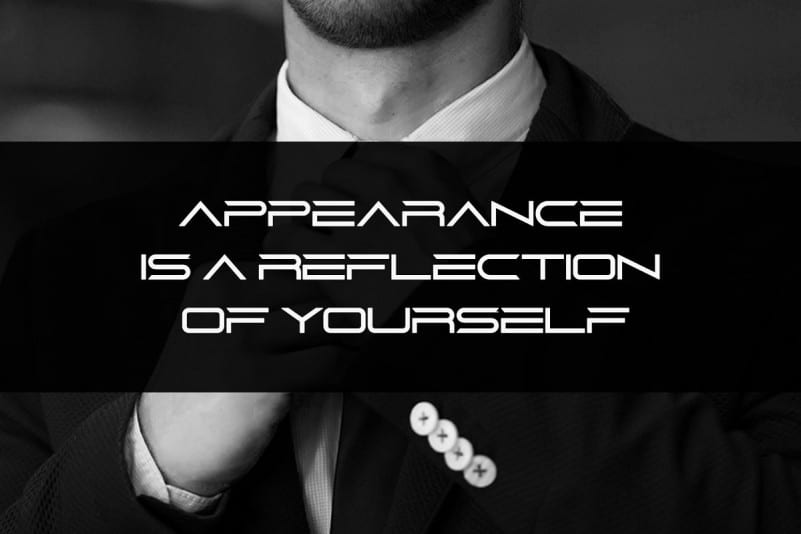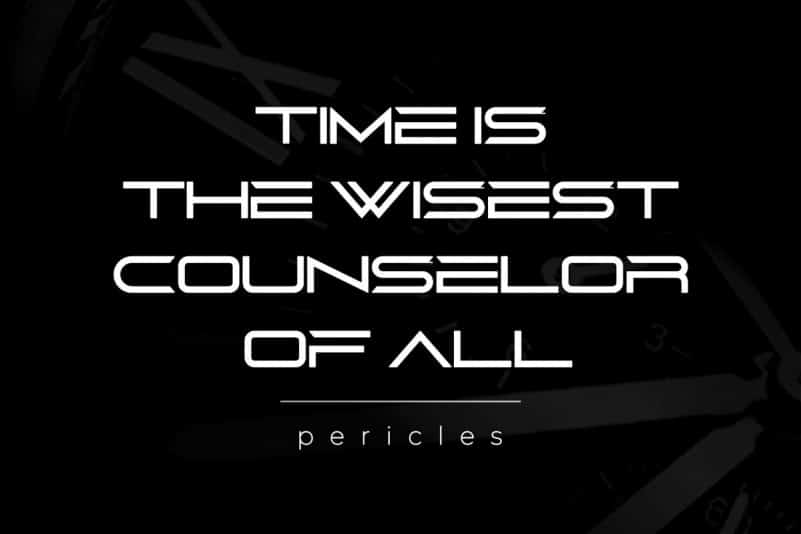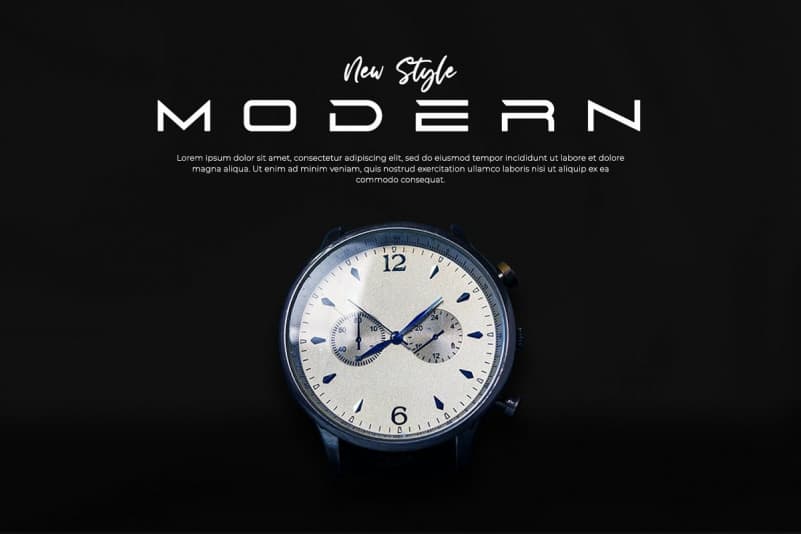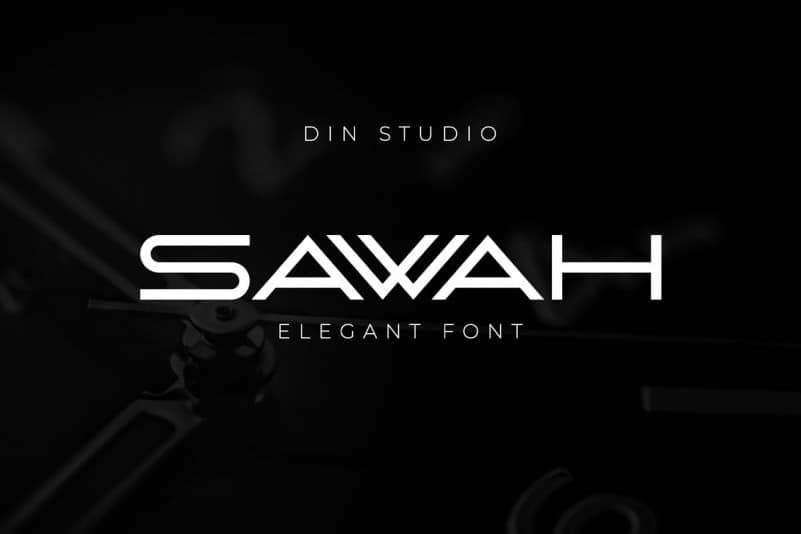
Sawah Display Font is a versatile display font with it’s clean and sleek build. Rounded lowercase emphasize the modern and clean feel. The overall typeface is geometric to bring order and alignment in between the letters. It celebrates abstract shapes in all their eclectic beauty. This font will look truly outstanding in a wide range of contexts. It is the best for logos, branding and quotes.